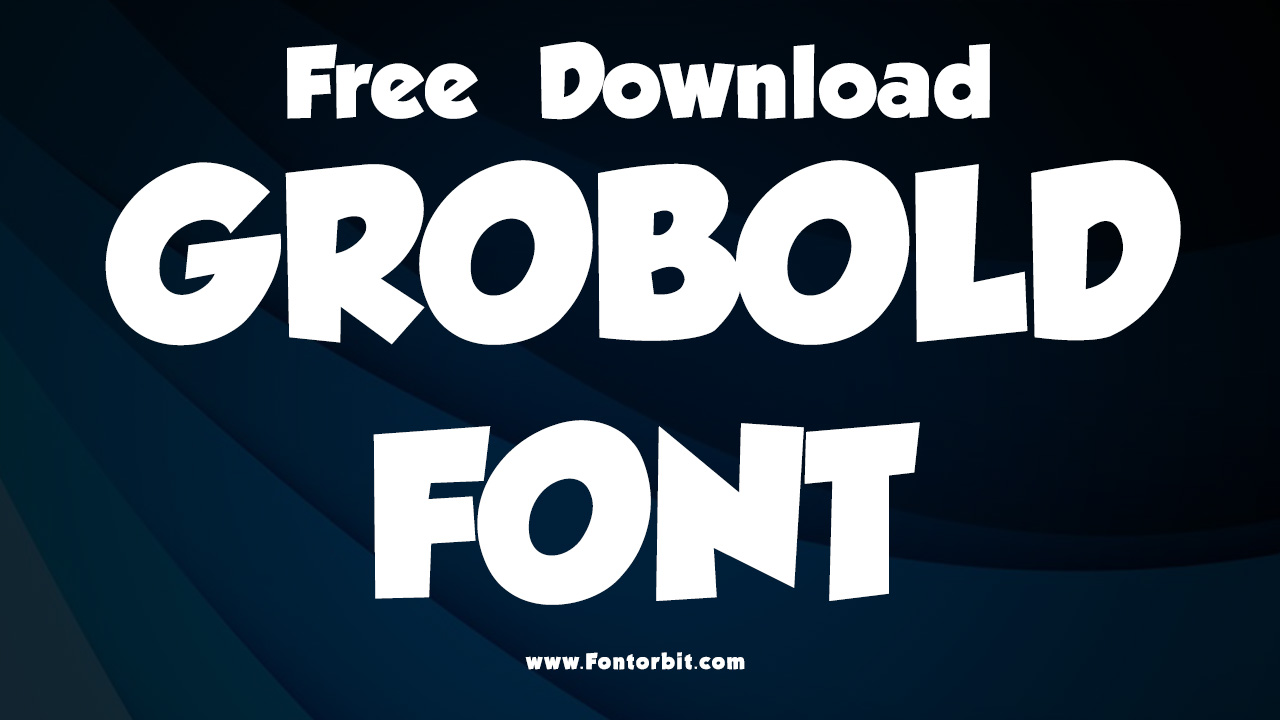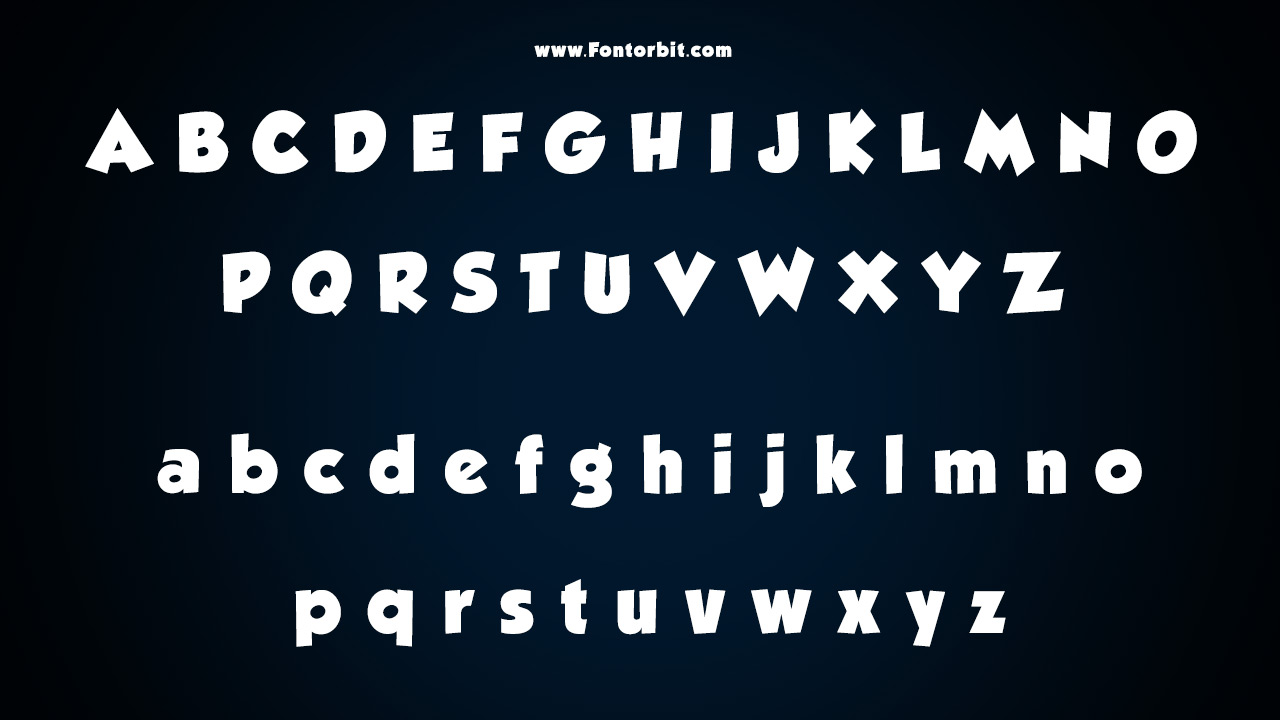
Grobold Font is a unique and playful typeface created by Guy Buhry. Designed to make a fun statement in various design applications, Grobold offers a cheerful and cartoonish look, perfect for both text and display uses. This typeface is ideal for projects that require a whimsical touch.
Type Of The Grobold Font (Font Family)
Grobold Font falls into the category of cartoon typefaces, known for their rounded and energetic design. It is characterized by its playful style, making it a great choice for creative projects. The Grobold font family includes:
Grobold Regular
Grobold Font is perfect for adding a distinctive and fun element to a wide range of projects. Its vibrant design makes it well-suited for:
- Children’s books
- Cartoon graphics
- Flyers
- Logo design
- Party invitations
- Decorations
The Grobold Font Found In Use
Grobold Font is a lively typeface that adds a whimsical flair to any project. Whether you’re designing for kids or creating fun promotional materials, Grobold is a versatile choice that brings a fresh, cheerful edge to your designs.
1.What Are The Characteristics Of Grobold Font?
Grobold Font is a cartoon typeface characterized by its rounded shapes and playful appearance, making it suitable for fun and energetic designs.
2.What Projects Is Grobold Font Suitable For?
This font is ideal for children’s content, playful branding, and any design that aims to convey a sense of joy and lightheartedness.